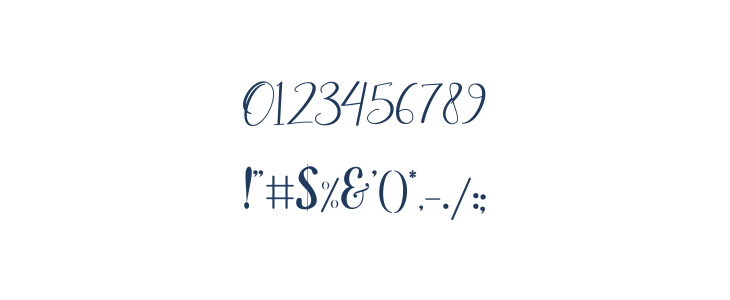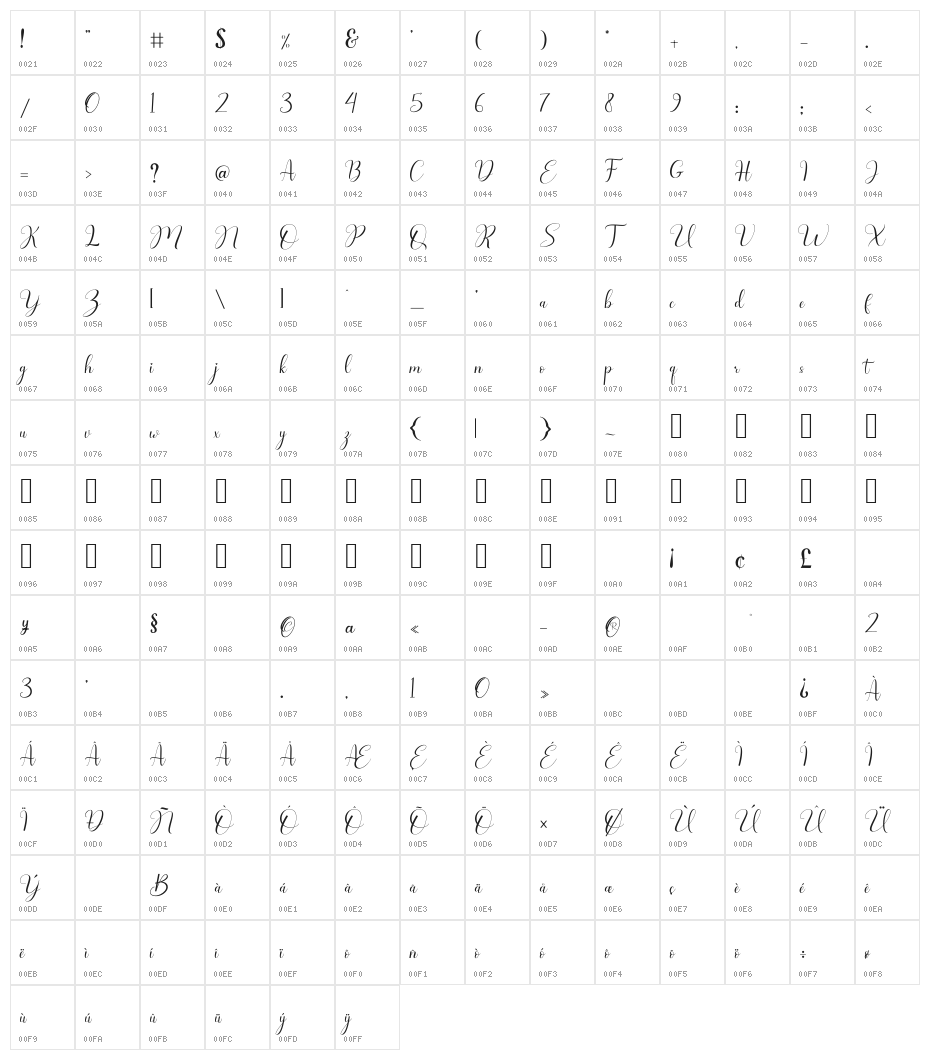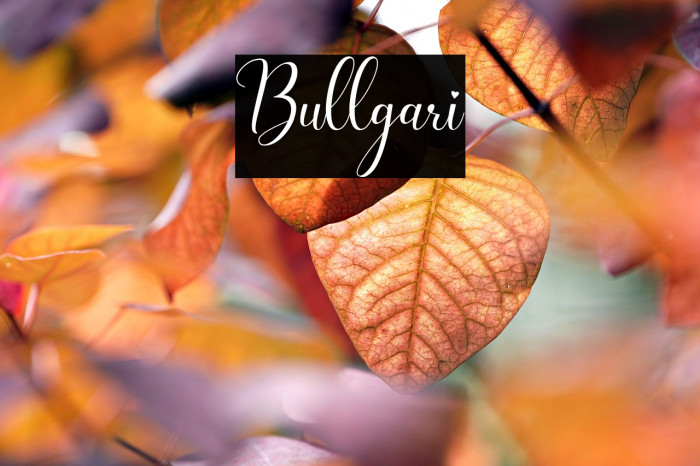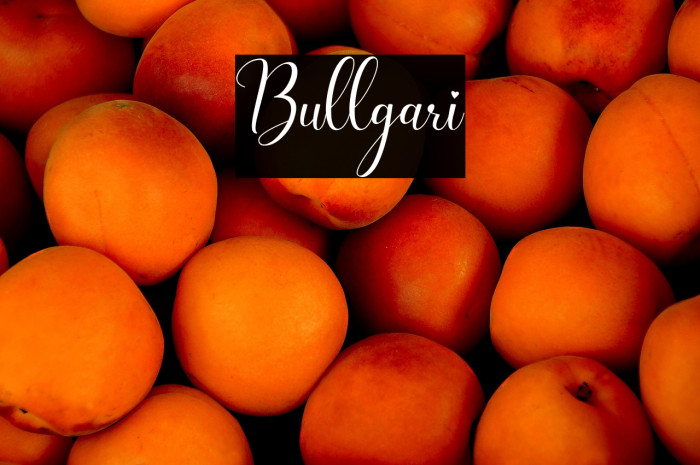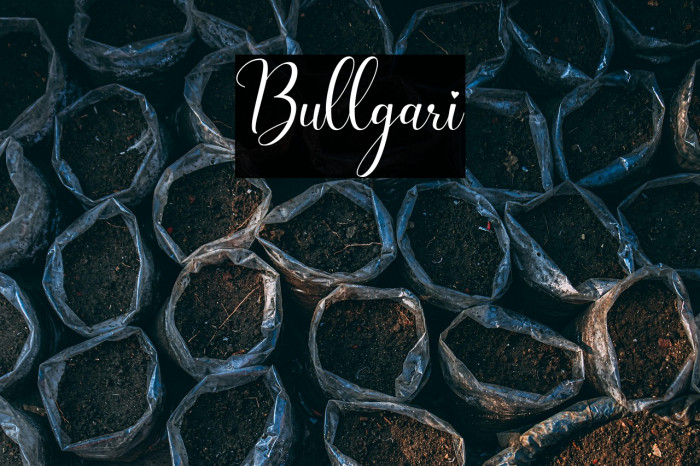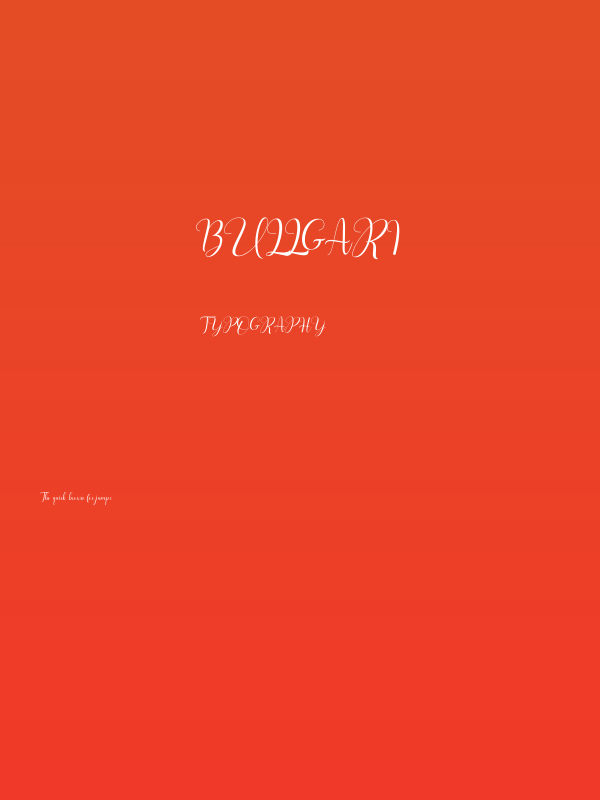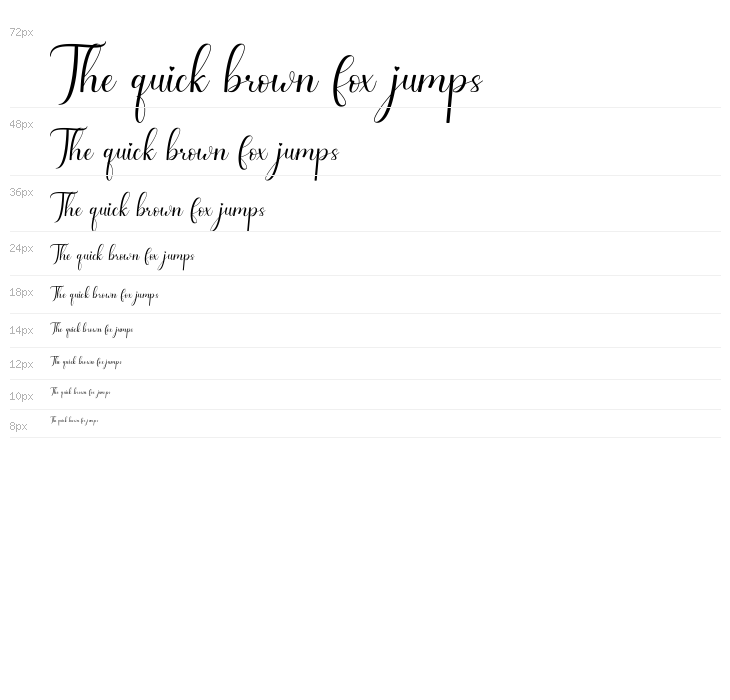
Bullgari Font
Bullgari Description
This elegant script font features flowing, interconnected letters that exude a sense of sophistication and grace. The uppercase letters are tall and slender, with delicate loops and swashes that add a decorative flair. The lowercase letters maintain a consistent style, with smooth curves and a slight slant that enhances readability. The numerals are stylish and complement the overall aesthetic, while the special characters are thoughtfully designed to match the font's refined appearance. This font is perfect for projects that require a touch of elegance and class.
| Overall Style | Elegant |
| Use Case | Logos, Invitations, Branding |
| Proposed Projects | Ideal for wedding invitations, luxury branding, elegant stationery, and high-end product packaging. |